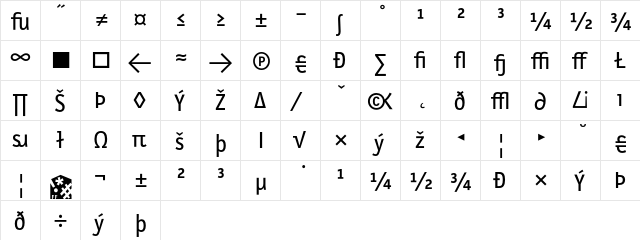
LetterGothicSlangT RomanExp
Design Context for LetterGothicSlangT Typeface
LetterGothicSlangT takes a clean, functional approach — its unadorned letterforms prioritise legibility and work reliably across screen and print environments.
Font Pairing: Works well alongside a characterful serif or display font that can carry the expressive load while LetterGothicSlangT handles the functional copy.
Pro Tip: Pair LetterGothicSlangT with a display or serif font for headlines — its neutral character makes it an excellent supporting player in complex typographic systems.